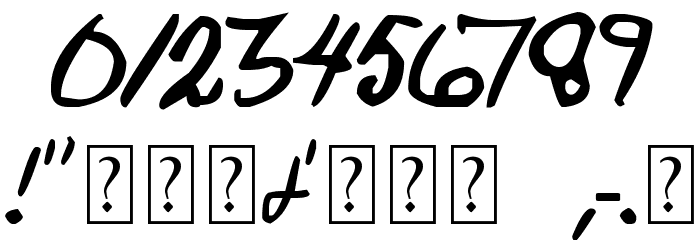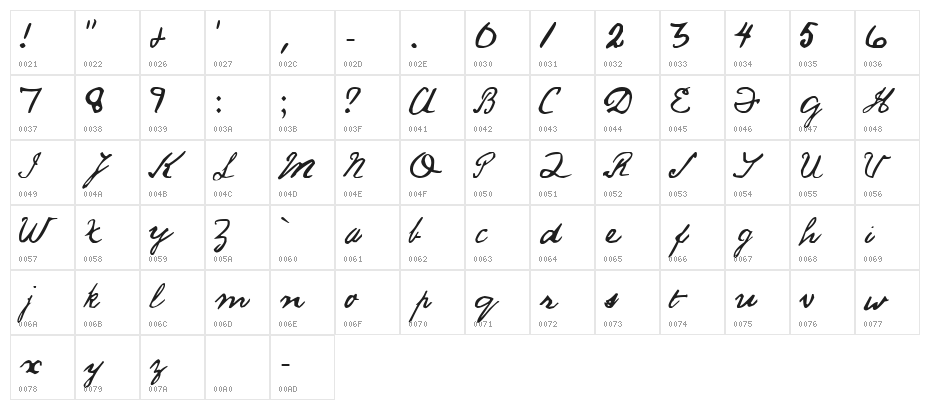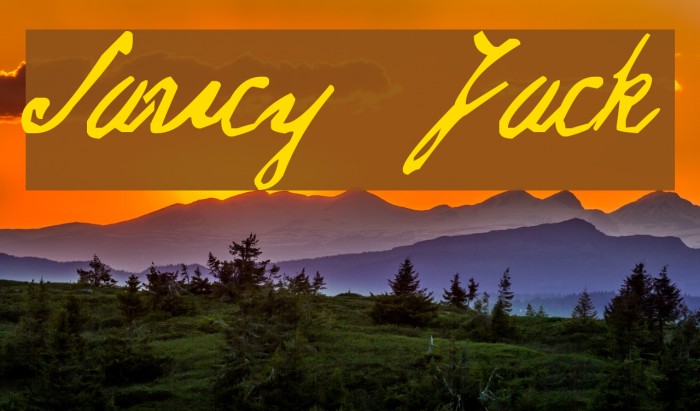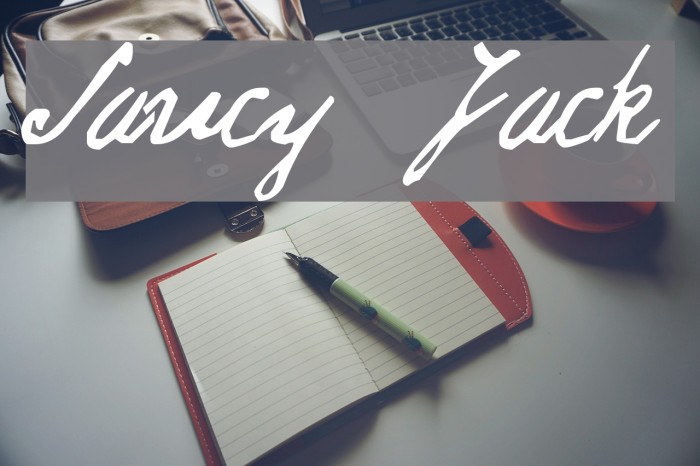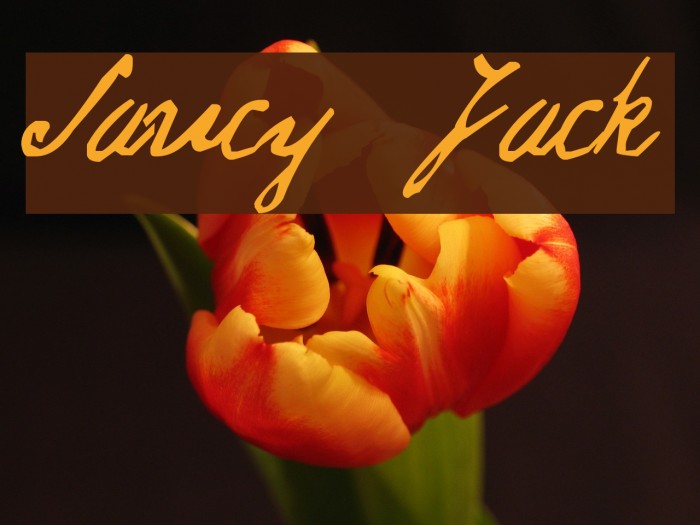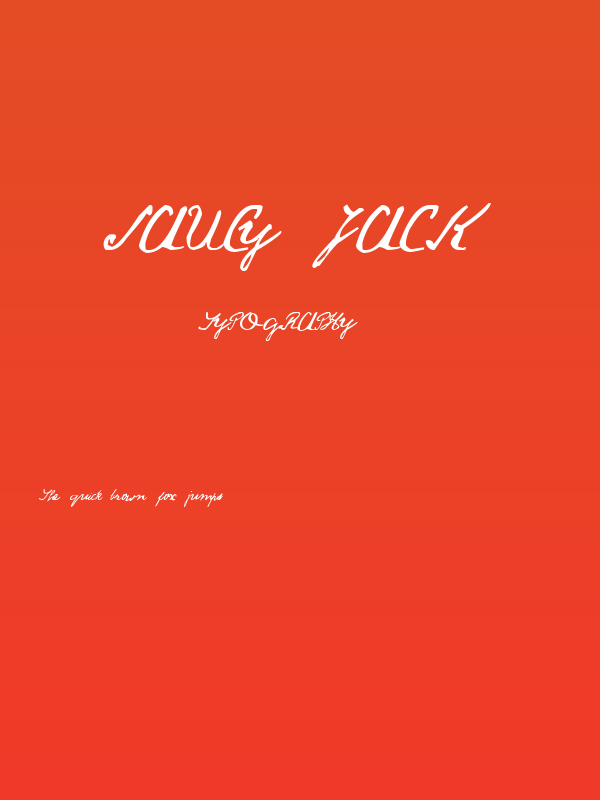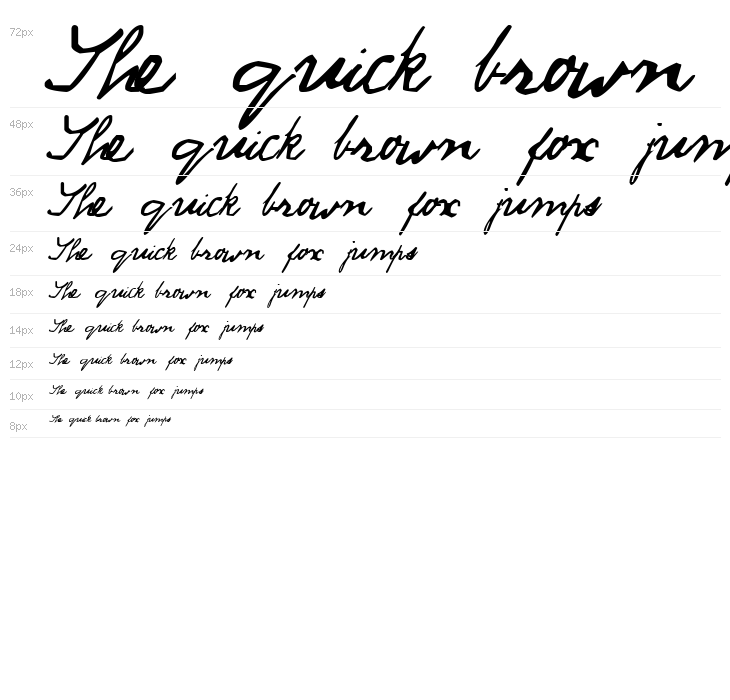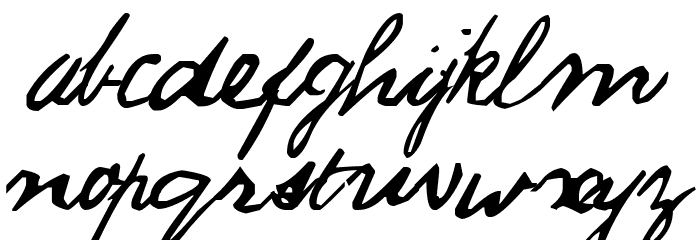
Saucy Jack Font
Saucy Jack Description
This font exudes a dynamic and fluid style, characterized by its cursive script that mimics elegant handwriting. The letters are interconnected with smooth, flowing strokes, creating a sense of movement and grace. The uppercase letters are bold and slightly larger, providing a striking contrast to the more delicate lowercase letters. Numbers and special characters maintain the same fluidity, ensuring consistency across all elements. The overall appearance is both sophisticated and approachable, making it suitable for a variety of creative applications.
Overall StyleElegant and fluid
Use CaseLogos, Invitations, Artistic projects
Proposed ProjectsIdeal for wedding invitations, greeting cards, personal branding, and artistic projects that require a touch of elegance.